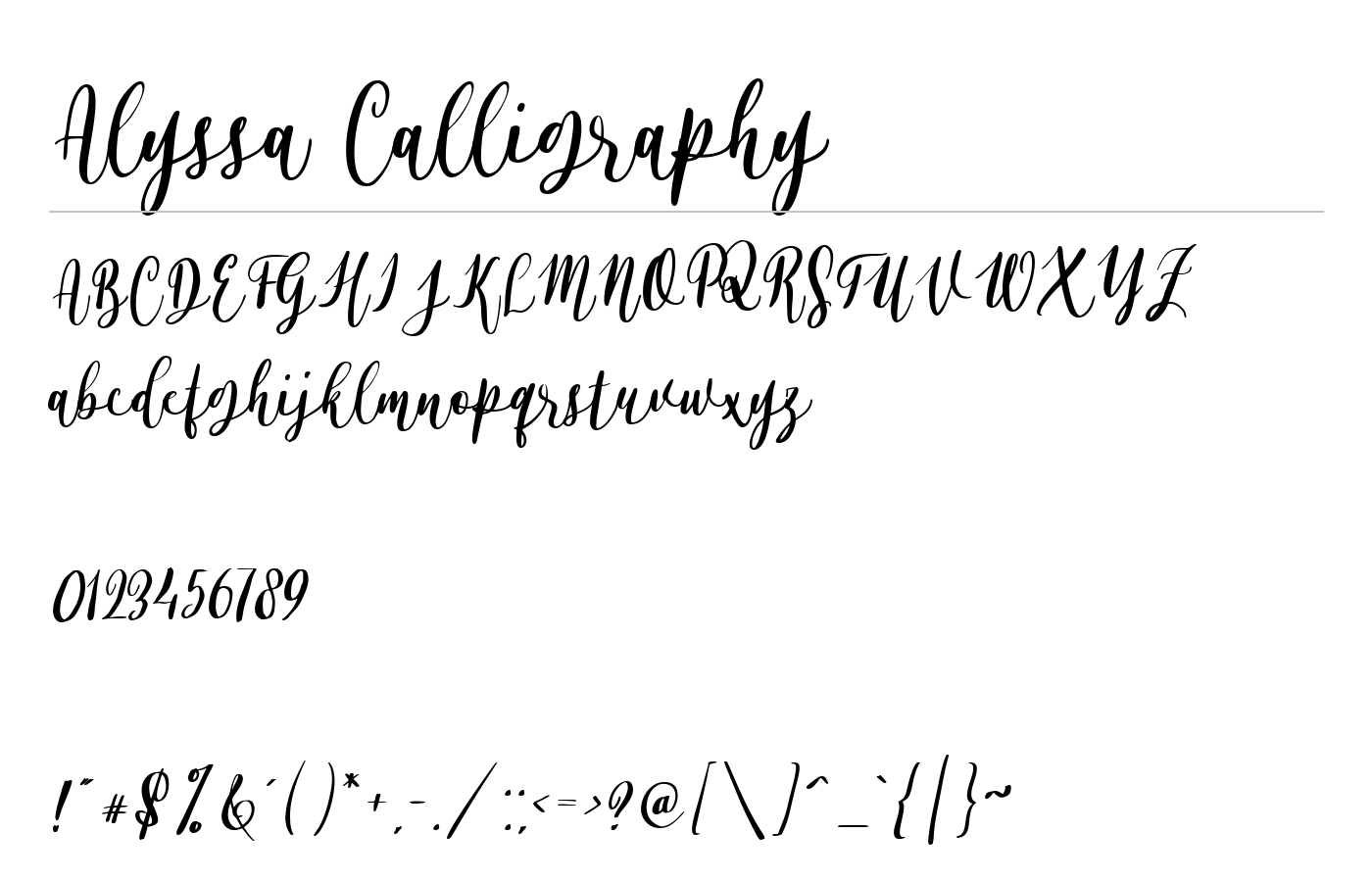
Alyssa Calligraphy is an elegant and graceful script font that mimics natural handwriting with smooth, flowing strokes and a light, airy feel. Its tall, slender letterforms and gentle curves make it perfect for adding a personal, sophisticated touch to invitations, branding, and decorative headlines. This font works well where a stylish, feminine, and artistic vibe is desired, enhancing designs with charm and warmth.
Alyssa Calligraphy Font
About Alyssa Calligraphy Font
| Font family | Alyssa Calligraphy Font |
| Designer | Colllab Studio Team |